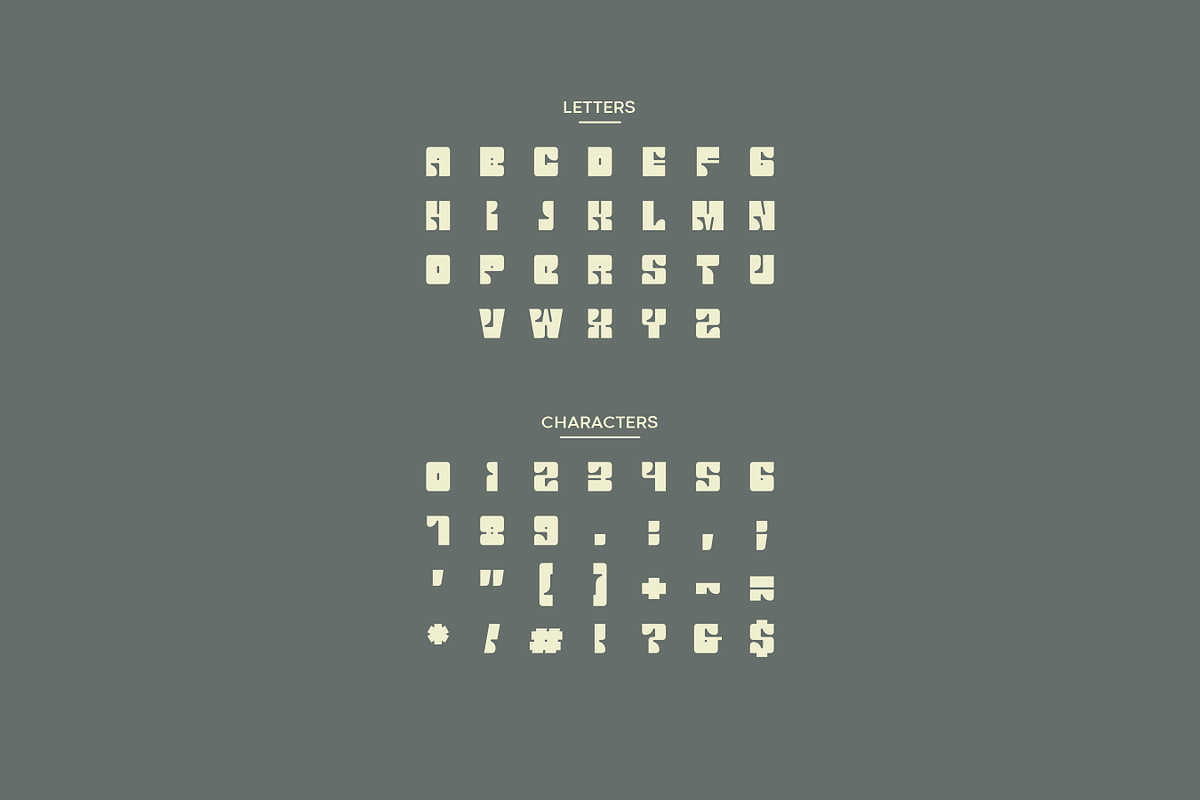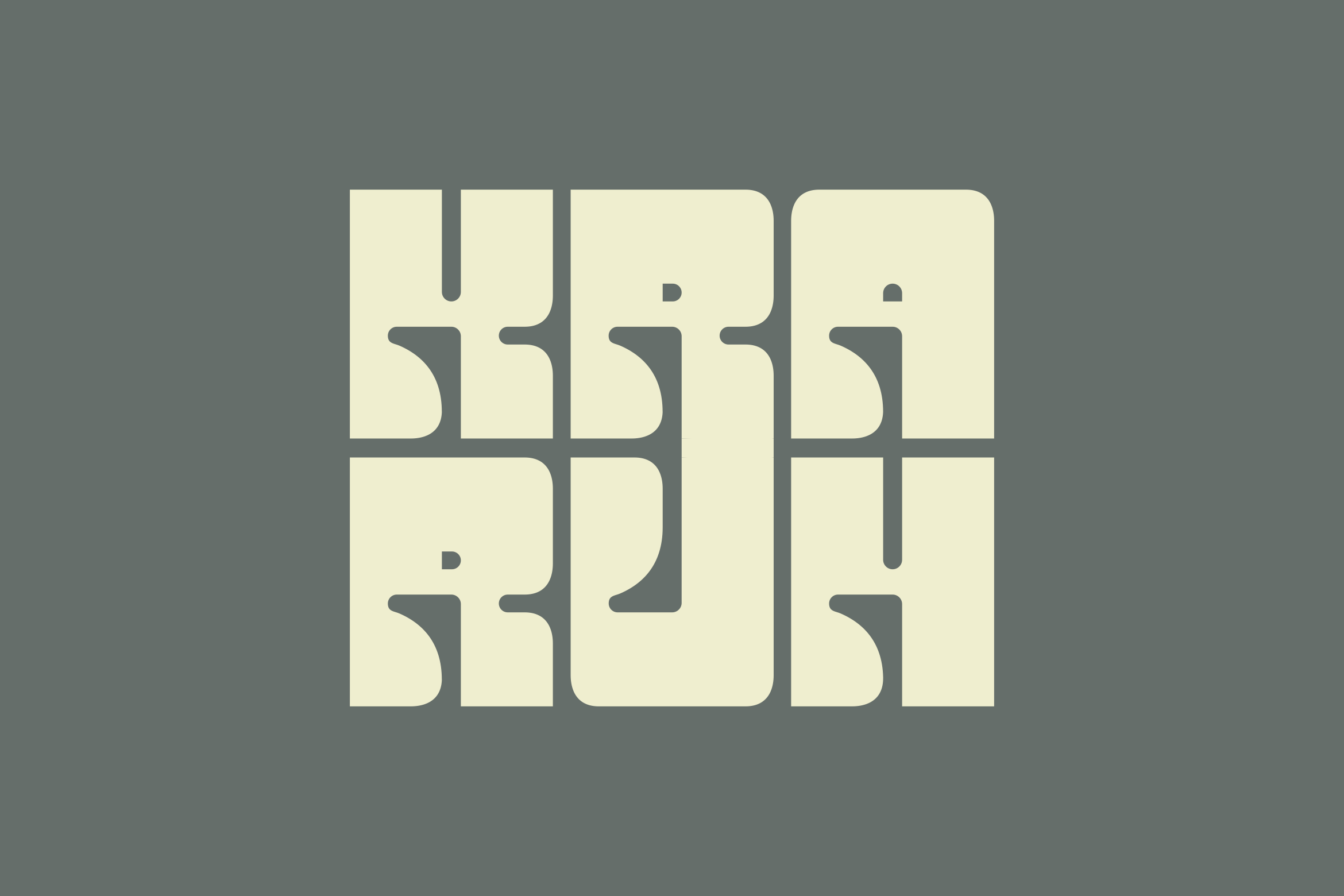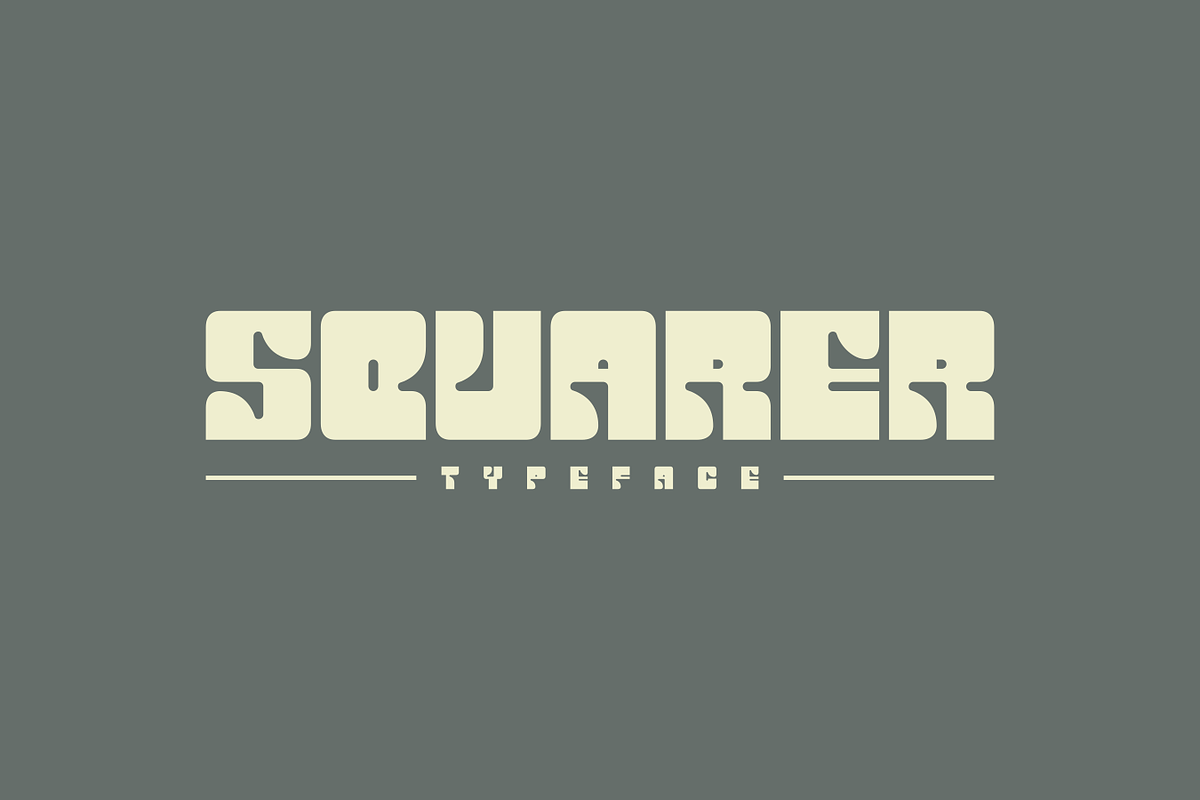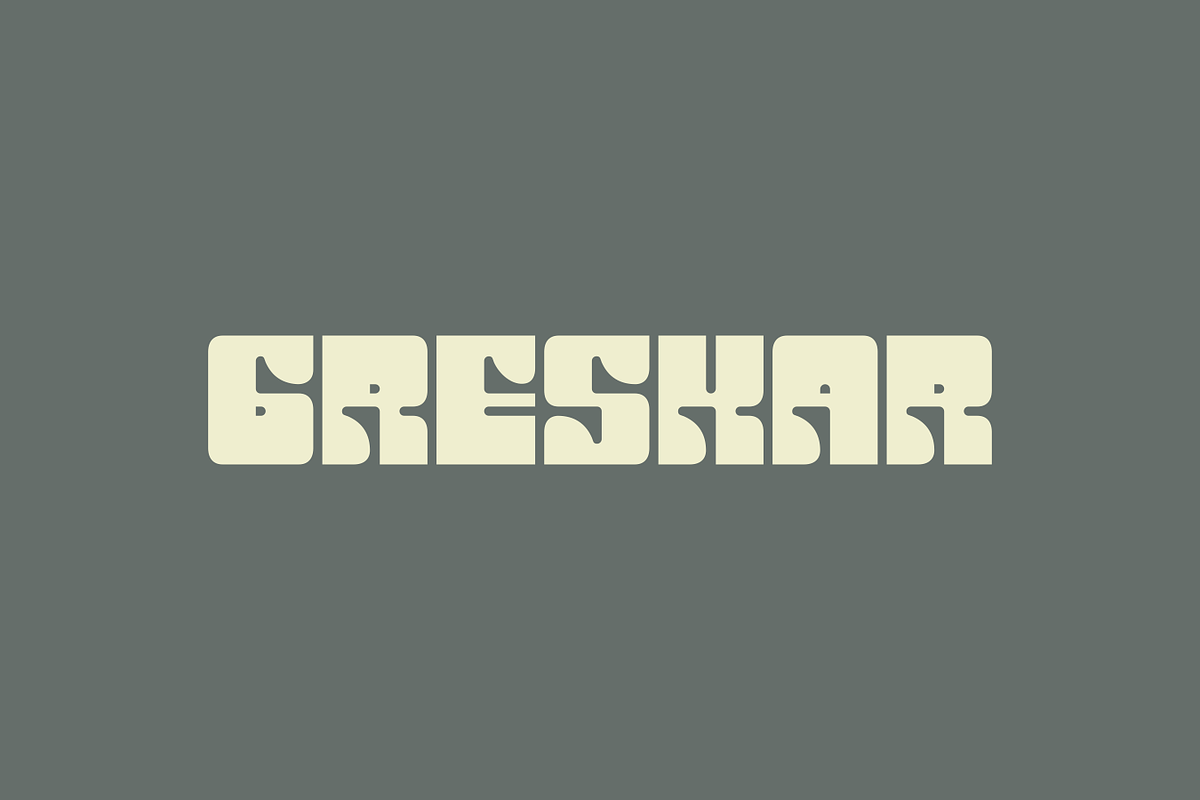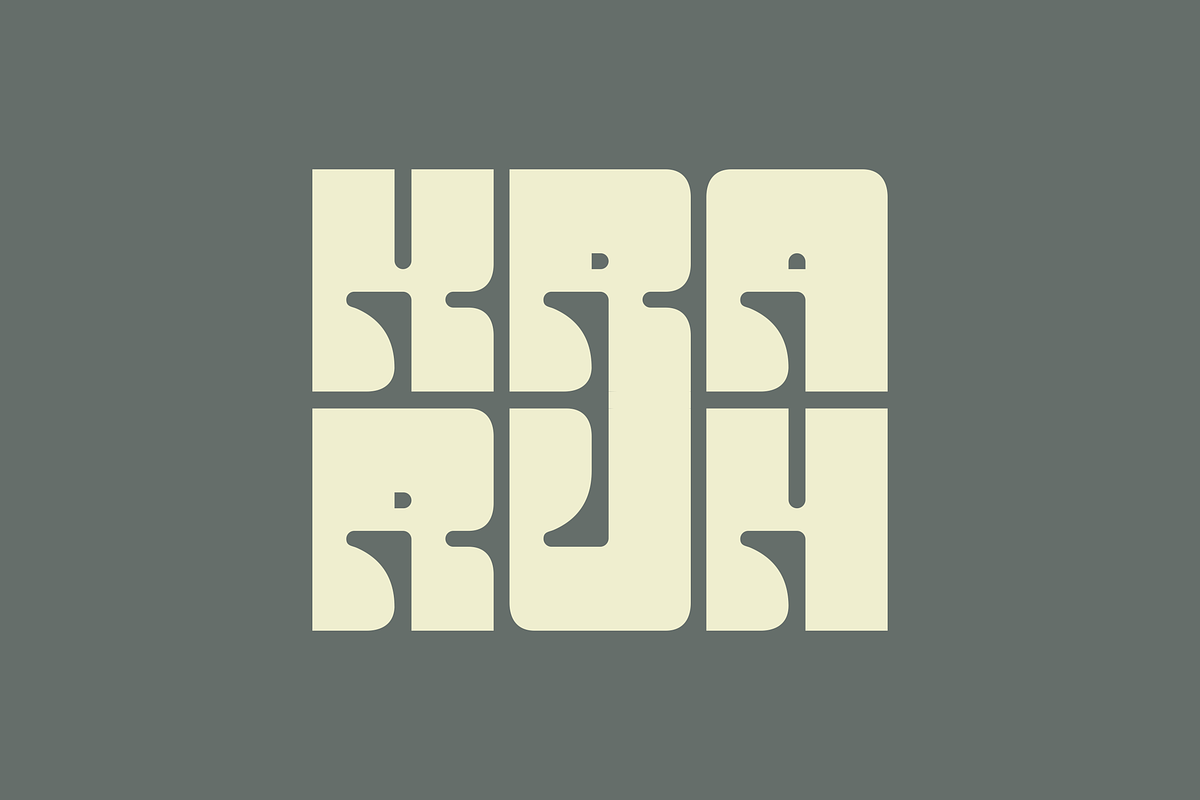
Kraruh - Bold Modular Typeface
Kraruh a modular sans font crafted from squares with refined rounded details. This uppercase-only powerhouse is designed to add a substantial, eye-catching element to your font collection. It’s not just bold—it’s essential! Kraruh blends geometric precision with subtle softness, which is ideal for projects that require both impact and readability. Beyond its striking appearance, Kraruh comes equipped with stylistic design making it versatile for everything from headlines and posters to product packaging and logotypes. Dive into Kraruh and transform your creative work with a font that’s as bold as your ideas.